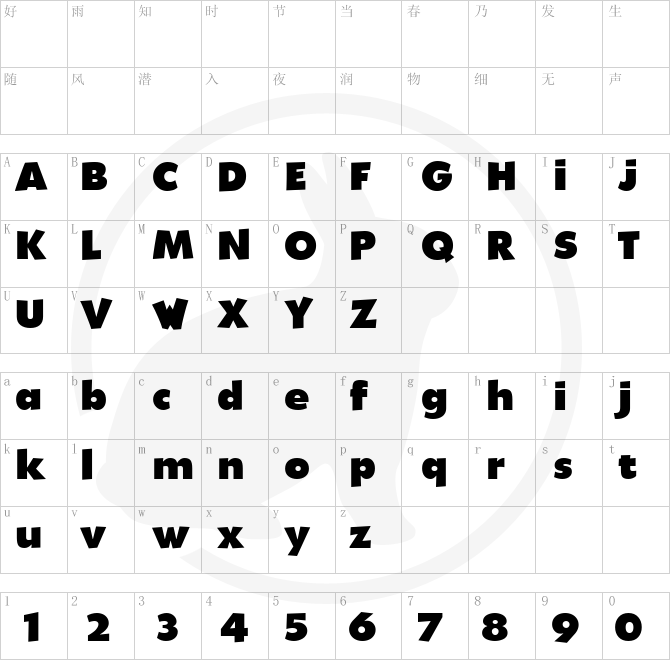
- Font Name:Walibi0615
- Full Name:Walibi0615 Bold
Walibi0615-Bold.ttf is a very beautiful artistic font, Walibi0615-Bold.ttf is widely used in the design and printing of various books and pictures,Walibi0615-Bold.ttf has a strong visual impact,Walibi0615-Bold.ttf is a commonly used font in newspapers, magazines and books, and is used in posters, e-commerce Poster design, store design, logo design, font design and other fields.Walibi0615-Bold.